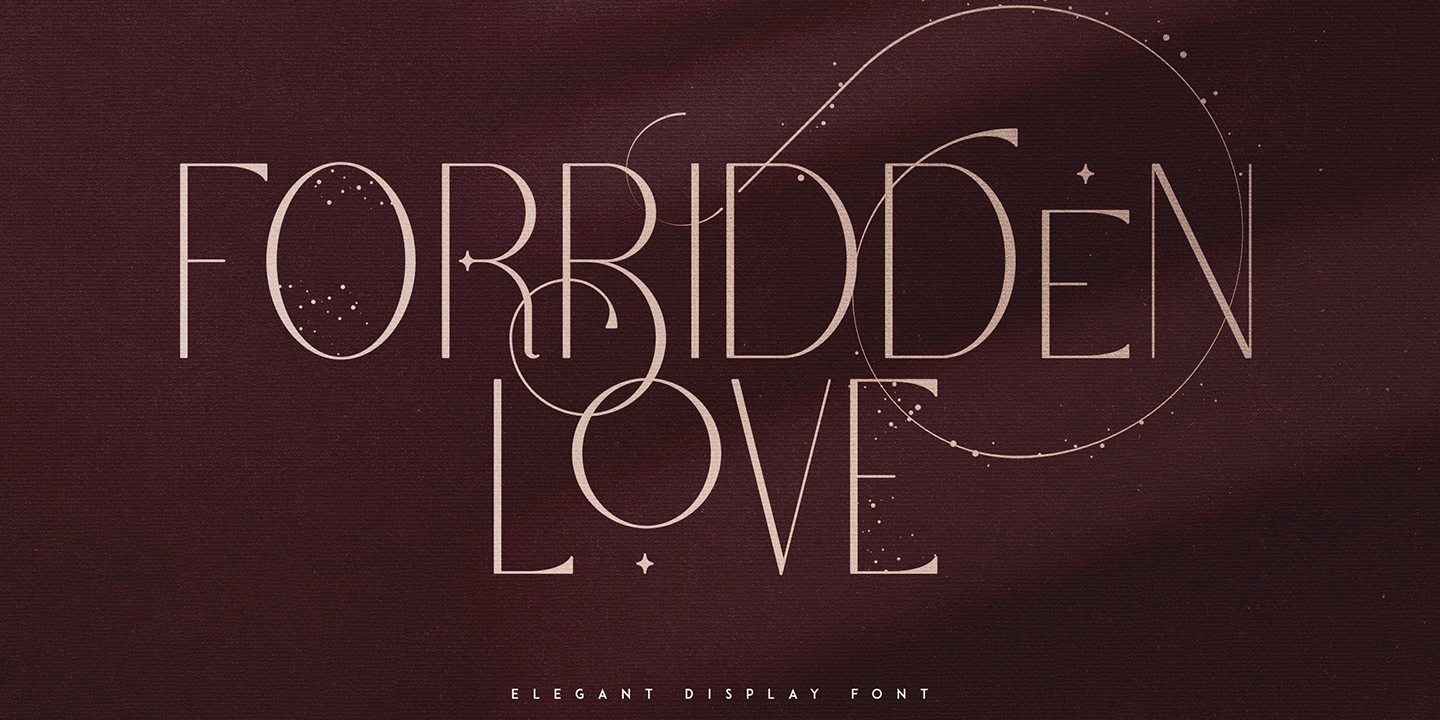
Forbidden Love Font is perfect for romance novel covers, gothic wedding invitations, mysterious perfume branding, dramatic theater posters, passionate Valentine's campaigns, dark romance book titles, intimate boutique signage, and emotional storytelling projects.
Forbidden Love Font is exciting because it captures the intense passion and mysterious allure of secret romance through its dramatic character design that embodies the emotional depth of forbidden relationships and the captivating beauty of love's most powerful expressions. Its romantic styling and mysterious appeal make it the perfect choice for brands that want to communicate passion, intrigue, and the irresistible magnetism of deep emotional connections.
Forbidden Love Font family includes multiple romantic variations: Forbidden Love Regular, Forbidden Love Bold, Forbidden Love Light, Forbidden Love Script, Forbidden Love Shadow, and Forbidden Love Ornamental, along with romantic decorative elements and passionate symbols, providing designers with comprehensive tools for creating authentic romance and mystery-themed brand experiences.
When exploring romantic typography solutions, Forbidden Love Font Free Download stands out as the ultimate choice for designers working on romance and passionate storytelling projects that require genuine emotional depth and mysterious appeal. This captivating typeface embodies the essence of romantic drama while offering the versatility needed for modern romance marketing and emotional brand communications. The font's passionate character and mysterious resonance create immediate connections with audiences who appreciate intense romance and emotional storytelling.
Creative professionals consistently turn to Forbidden Love Font for projects requiring authentic romantic sophistication and powerful emotional appeal. Its carefully crafted letterforms feature passionate influences that work exceptionally well in both large-scale romantic advertising and intimate personal stationery applications. The font's ability to convey deep emotion and romantic mystery while maintaining strong brand recognition makes it invaluable for comprehensive identity systems in the romance entertainment, luxury fragrance, and emotional storytelling sectors.
Whether you're developing romance publishing identities, creating passionate marketing campaigns, or designing intimate event materials, Forbidden Love Font delivers the authentic romantic character and mysterious appeal that resonates with audiences who cherish deep emotional connections and passionate love stories. Its romantic significance and dramatic design ensure your projects capture the profound intensity of forbidden romance while maintaining contemporary professional standards that attract modern romance enthusiasts and emotional storytelling audiences.